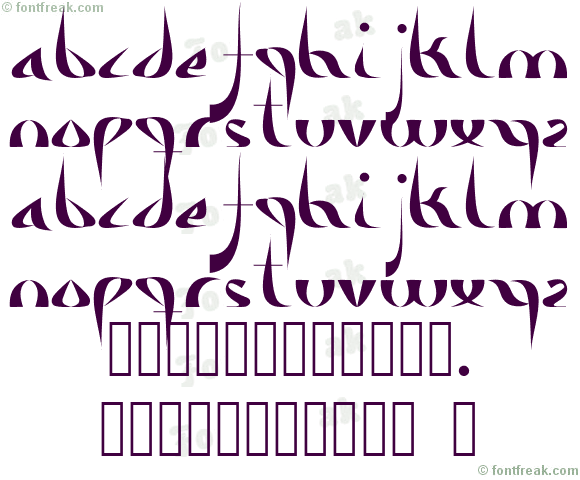
Alameda
The Alameda font, created by Manuel Ramos using FontForge, is a striking display typeface that captivates with its unique visual style. With a bold stroke weight and a smooth, flowing design, this font balances elegance and readability. Its decorative elements, including subtle curves and sharp points, contribute to a sophisticated yet approachable aesthetic. The spacing is generous, allowing for clarity and legibility, making it an excellent choice for various applications.
The Alameda font is particularly suited for eye-catching use cases such as wedding invitations, where its graceful lines can enhance the romantic tone of the event. It also works beautifully for movie posters, lending a cinematic flair that draws attention. Restaurant menus can benefit from its stylish appearance, helping to create an inviting atmosphere for patrons. Additionally, Alameda is an excellent choice for branding materials and marketing collateral, making it ideal for small business owners looking to establish a unique identity.
What truly sets the Alameda font apart is its ability to blend artistic flair with practicality. It captures attention without overwhelming the viewer, making it a perfect balance for any design project. Whether you are looking to elevate your creative work or simply wish to explore new typographic possibilities, the Alameda font free download offers an opportunity to enhance your designs with a touch of sophistication and style.